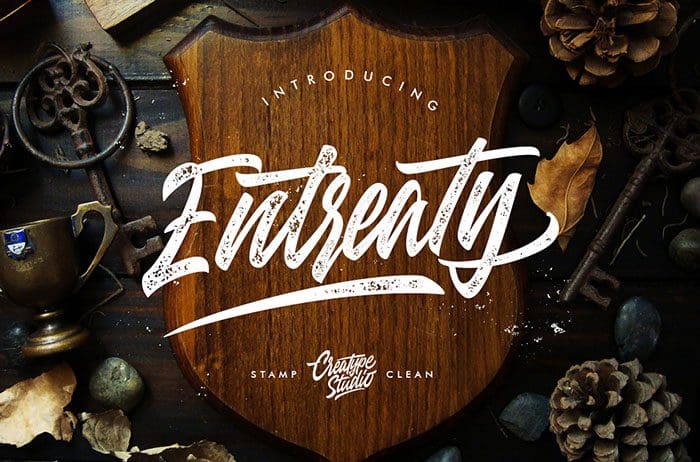
Entreaty Script Font
Entreaty is a bold modern hand-lettering Script Font. It’s allowing you to create beautiful hand-made typography in an instant. Thanks to Creatype Studio for sharing this font! Take a look at this portfolio for more of his stunning fonts.